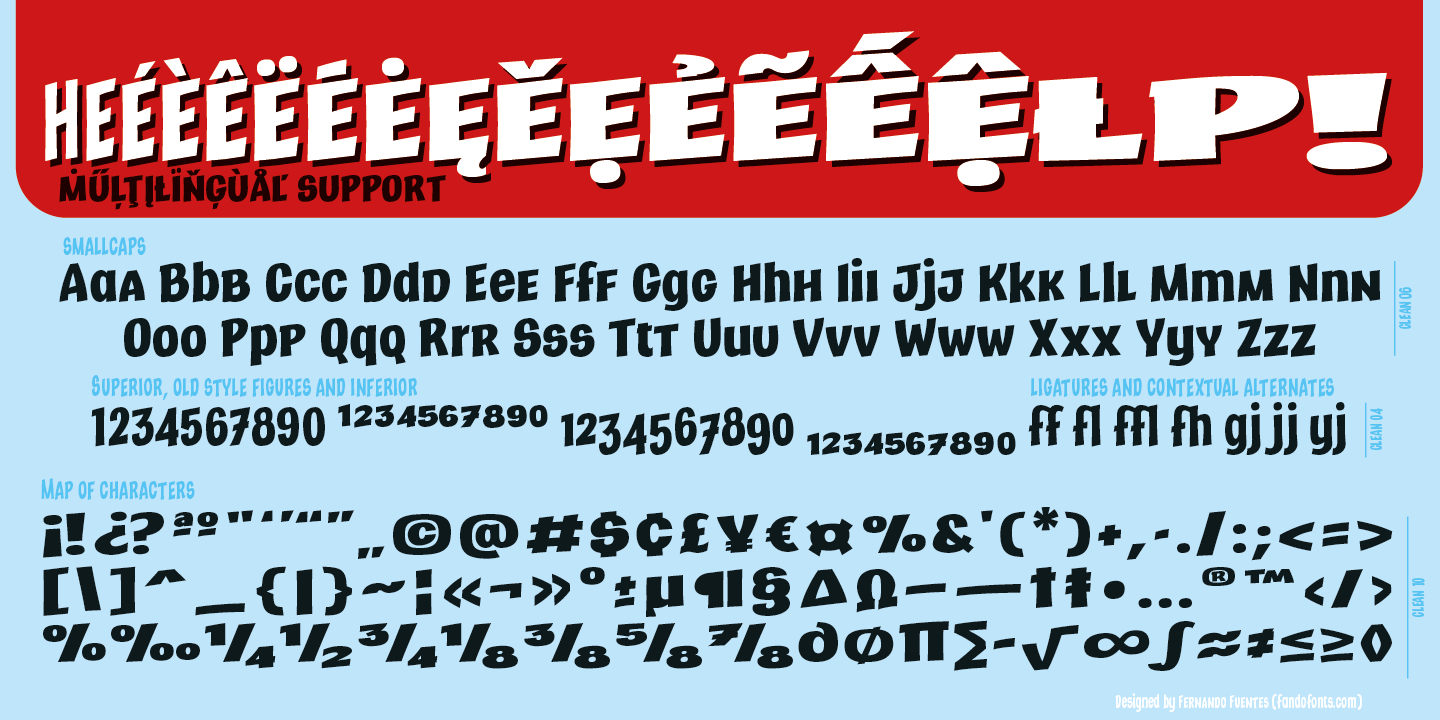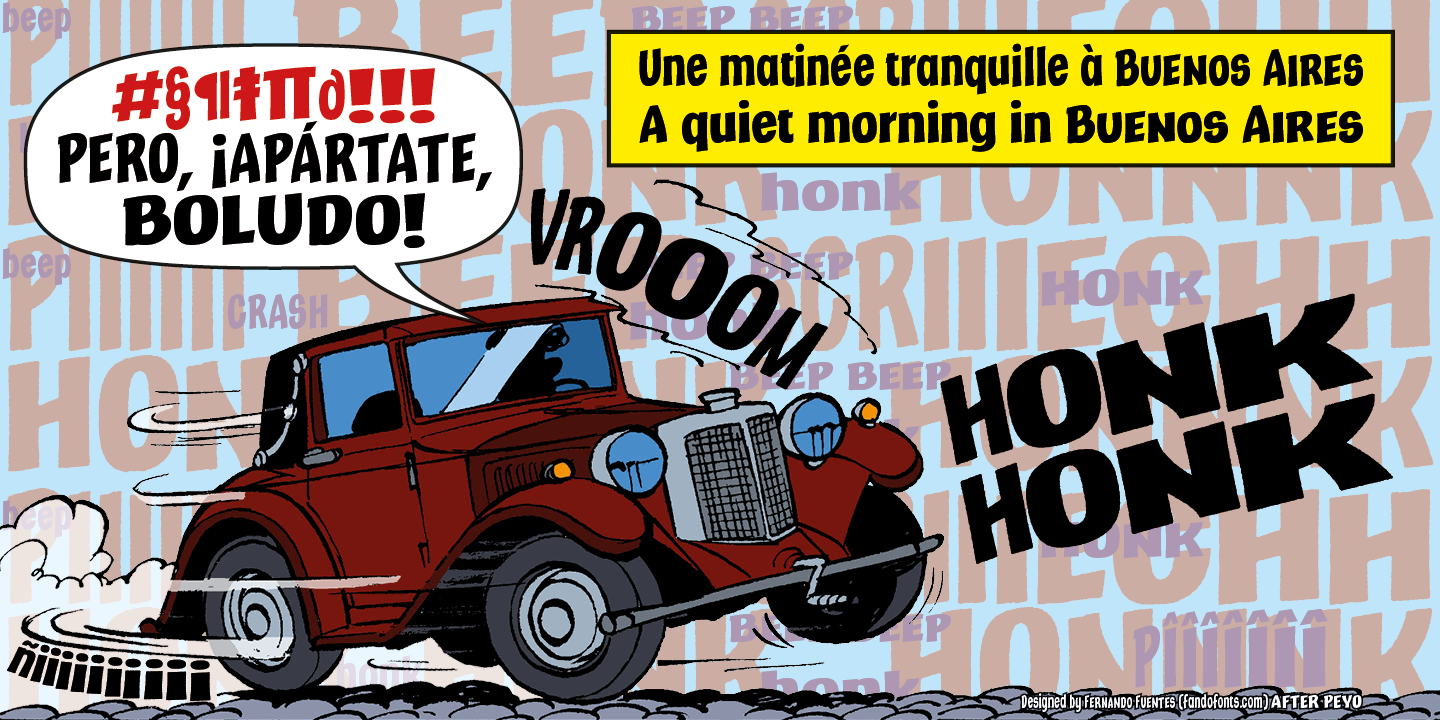
The origin of this family is the classic French-Belgian comics. The screams and onomatopoeia of these comics have so much personality that I needed to create a typeface family that would allow the designer to really replicate them.
But this family has many more applications: packaging, logos, posters, signage, packaging, branding, etc.
With its wide variety of glyphs you can make your sound effects, logos, etc. in most Latin languages.